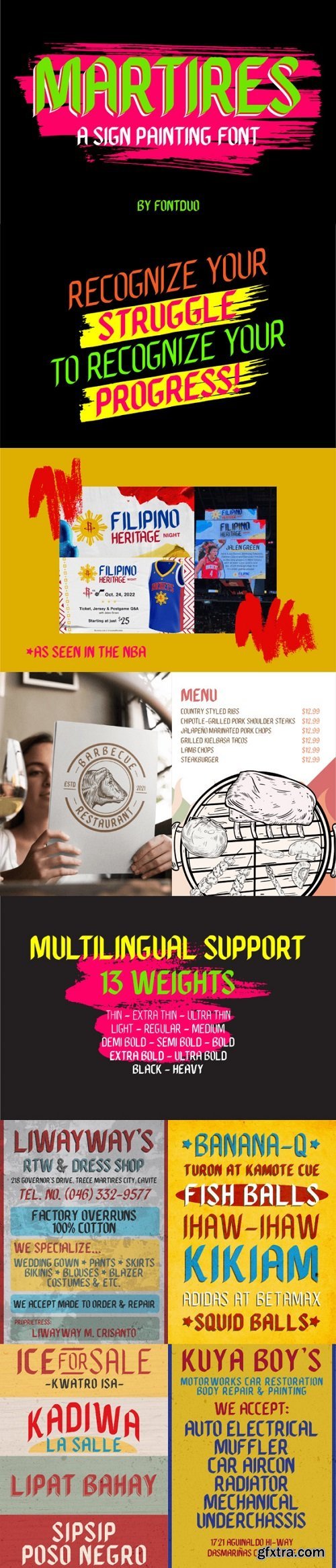
Martires is a display typeface based on Filipino sign painting. No matter the topic, this font will be an incredible asset to your fonts’ library, as it has the potential to elevate any creation.